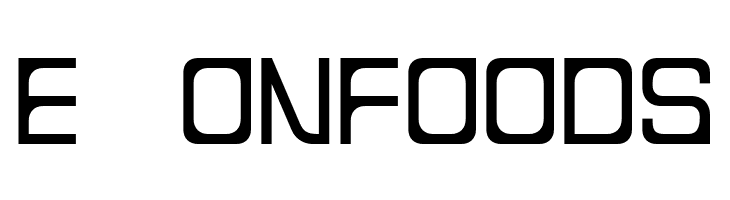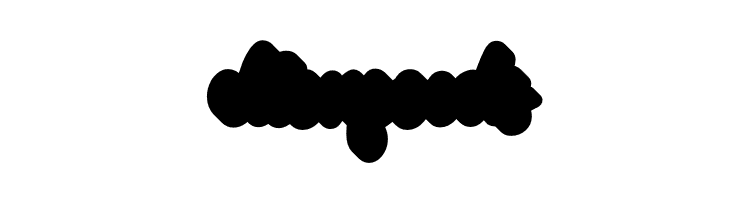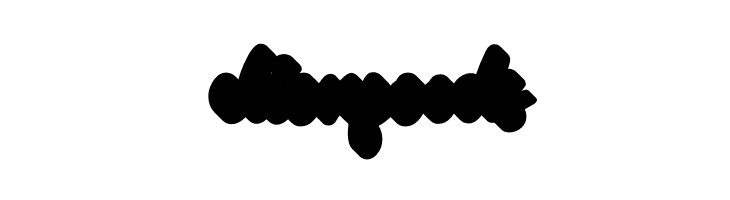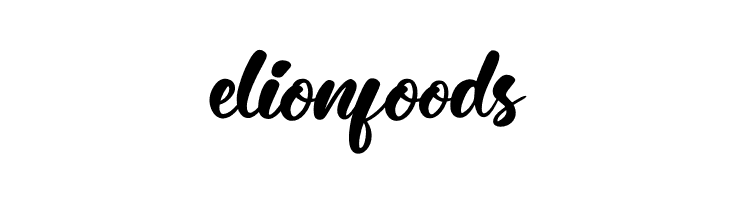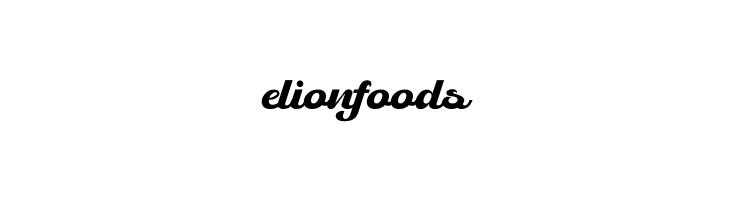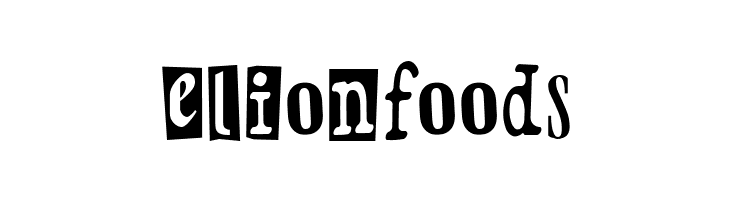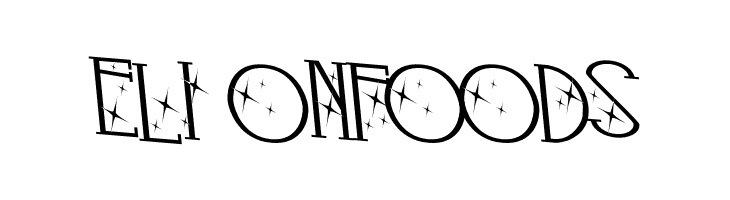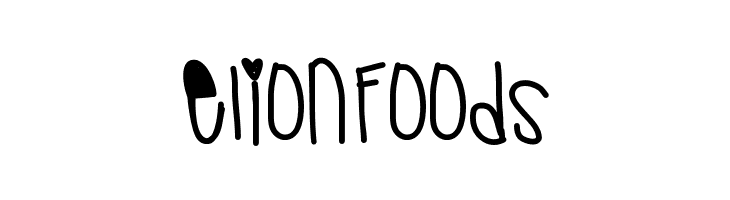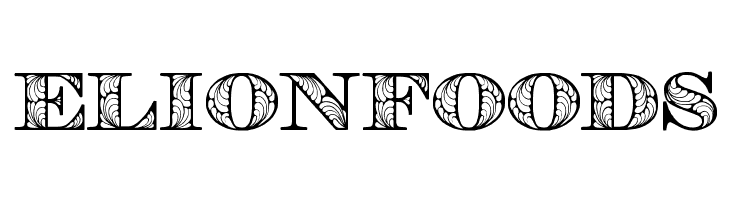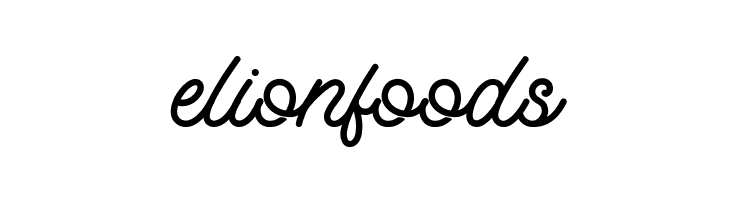
A bold, flowing script font with retro charm and elegance.
A bold, shadowed script font with a retro flair.
A bold, shadowed, and extruded font with a retro, playful style.
A playful, handwritten font with quirky, dynamic strokes and charming details.
A retro-futuristic font with geometric shapes and a clean, minimalistic design.
A bold, retro script font with dynamic curves and high contrast.
A playful, retro font with star-adorned, angular letters.
A flowing, cursive font with elegant, connected characters.
A playful, eclectic font with retro vibes and unique character designs.